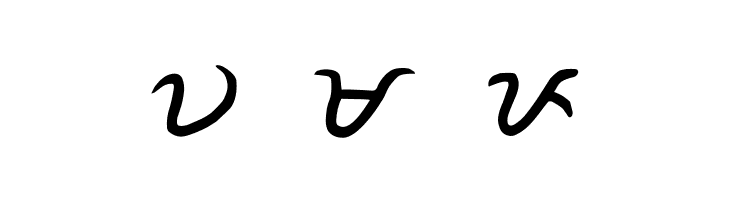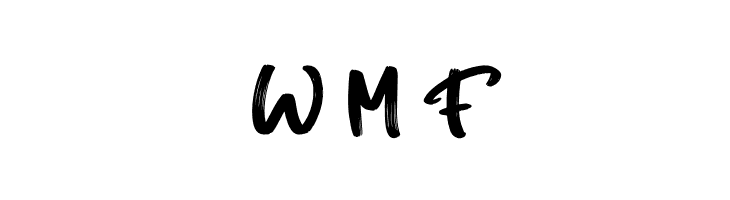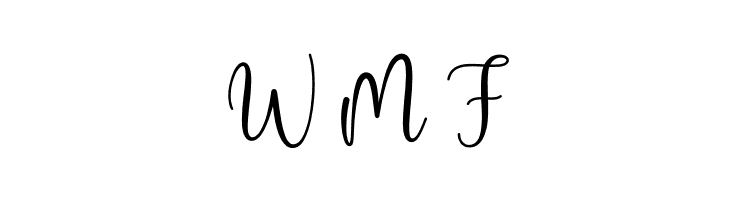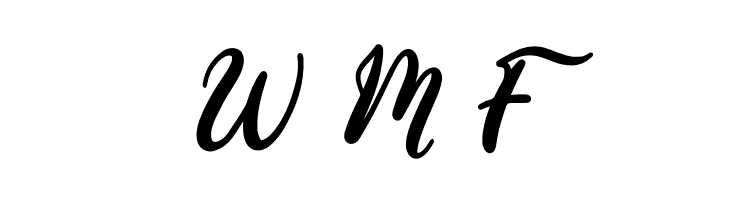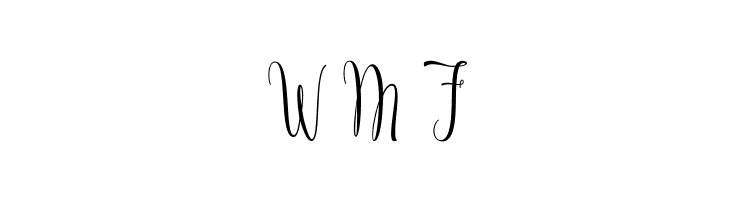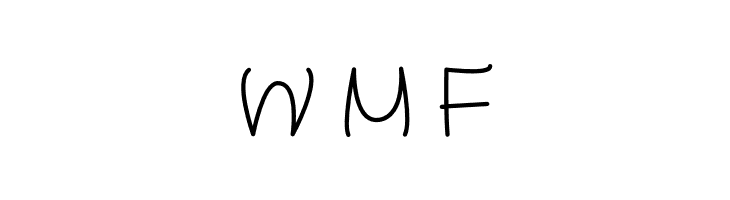
• AprilFlowers
A playful, handwritten font with smooth curves and a casual style.
• Aprilia
A bold, brush-style script font with a dynamic, handwritten feel.
• Aprilisa
A lively and energetic script font with flowing, cursive letterforms.
• Aprillia Wijaya Demo Version
A bold, flowing script font with elegant, dynamic strokes.
• Aprilliant
An elegant, flowing script font with smooth, cursive lines and graceful curves.
• Apu
An artistic, calligraphic font with fluid shapes and dynamic strokes.
• Aqeela
A playful and elegant handwritten script with flowing, connected letters.
• Aqilah
An ornate, decorative font with intricate patterns and flourishes.
• Aqilla
An elegant and flowing script font with graceful curves and fluid strokes.
• Aqillabetta
A bold, playful script font with interconnected characters and smooth curves.